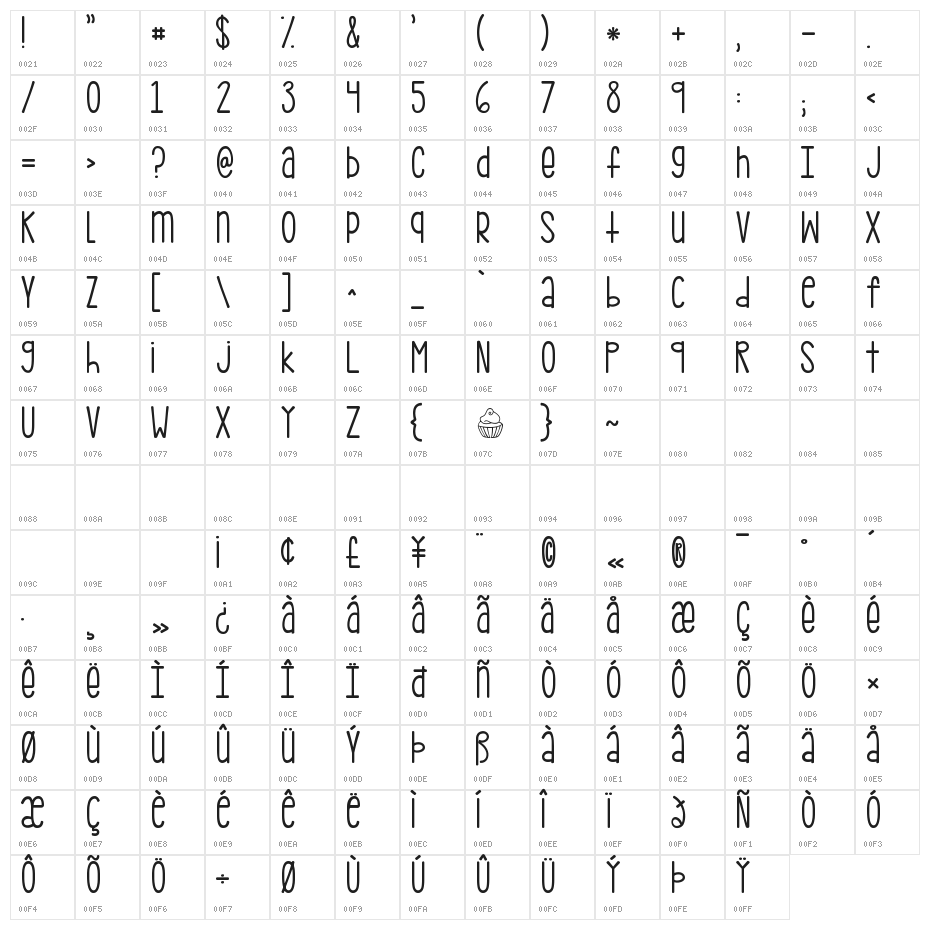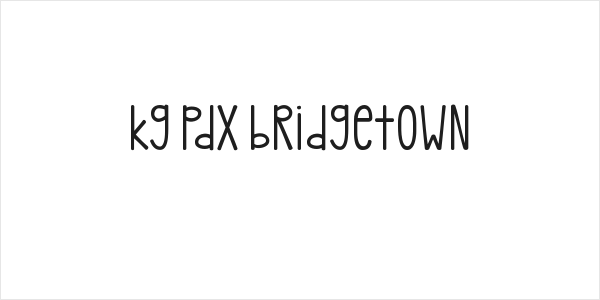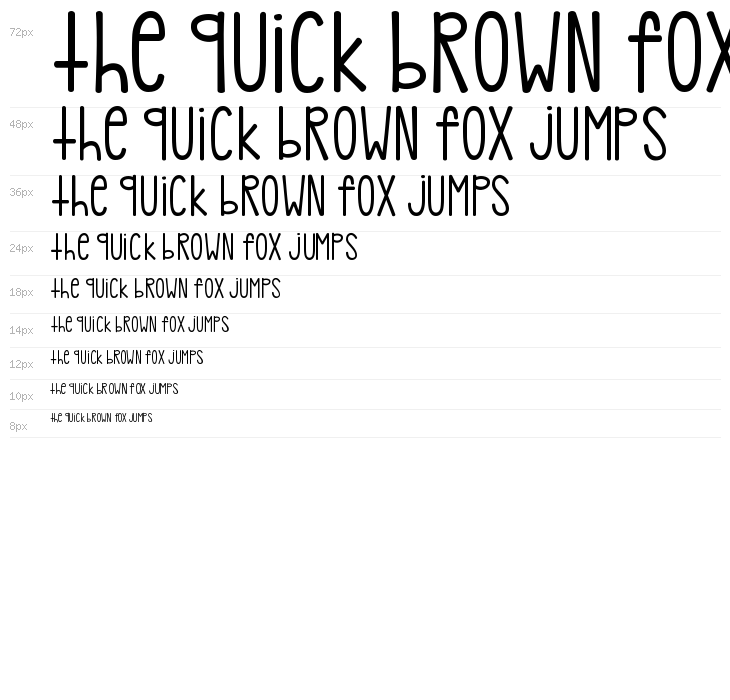
kg pdx bridgetown Font
kg pdx bridgetown Description
This playful and whimsical font features a handwritten style with rounded edges and a consistent stroke width. The characters are tall and narrow, giving it a unique and friendly appearance. The uppercase and lowercase letters maintain a cohesive look, with slight variations that add to its charm. The numerals and special characters are designed to match the overall aesthetic, making it versatile for various uses. Its informal and approachable style makes it suitable for creative projects that require a personal touch.
| Proposed Projects | Ideal for children's books, greeting cards, playful branding, and casual invitations. |